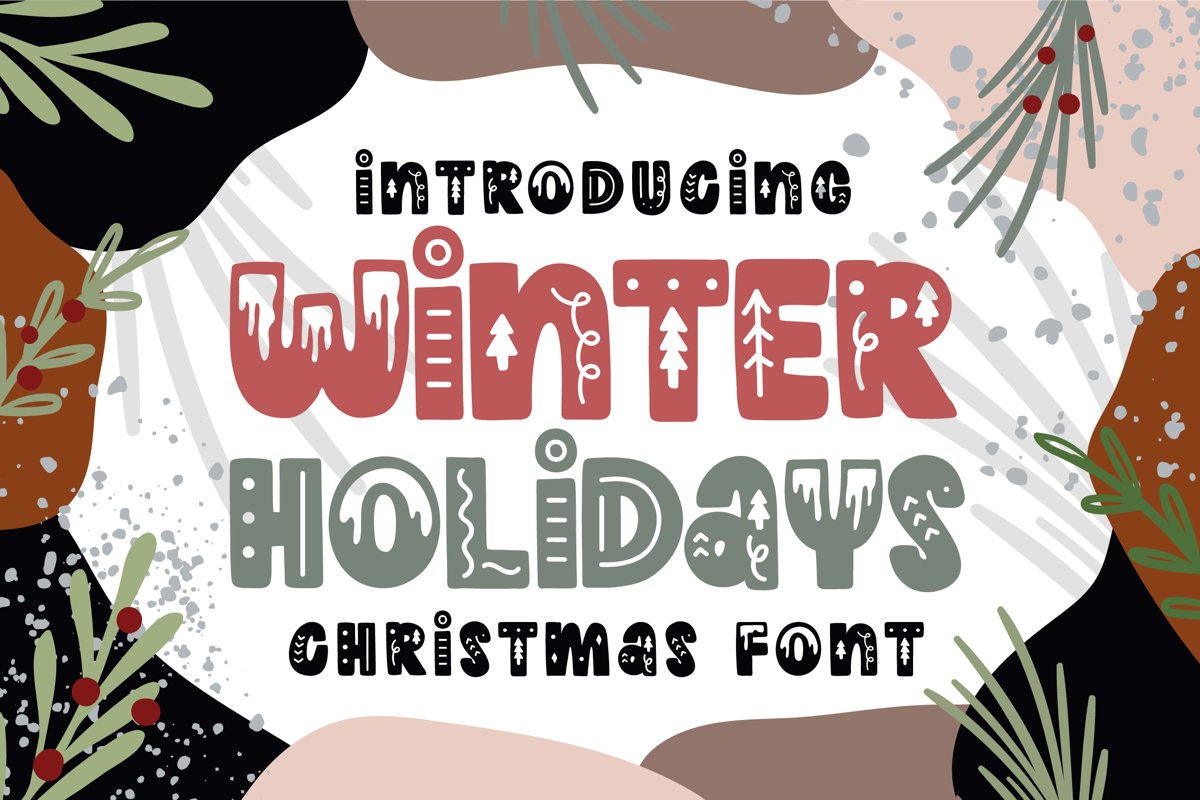
Winter Holidays
Hi! Winter Holidays is a cute winter/Christmas font. The font is bold suitable for a title, display font, decoration, and anything you might think of winter! What's inside :